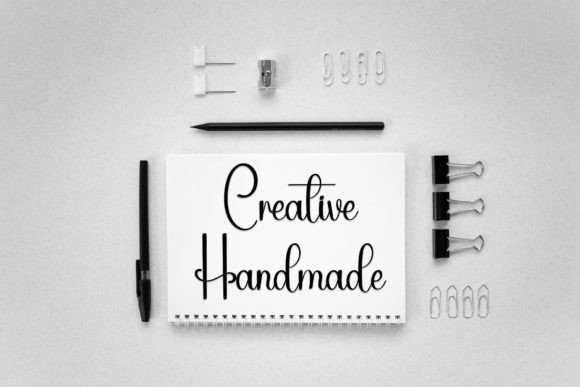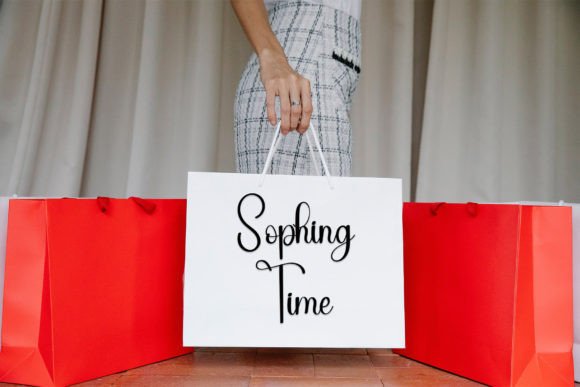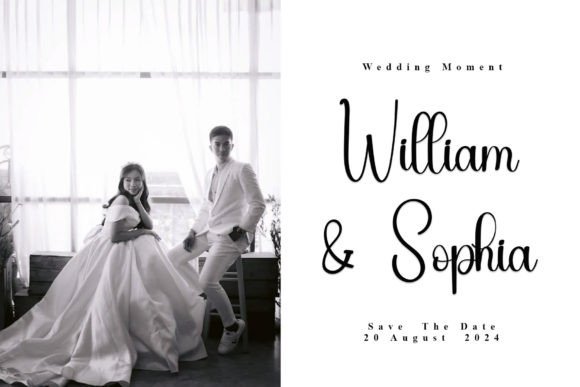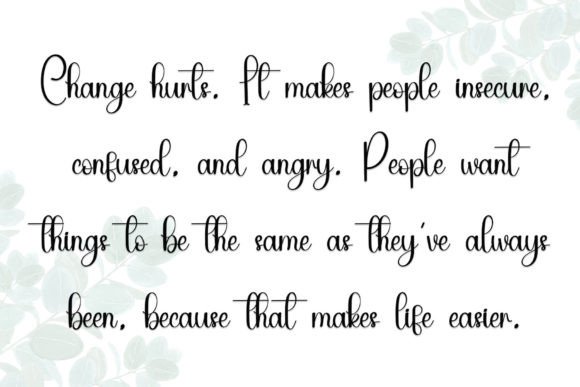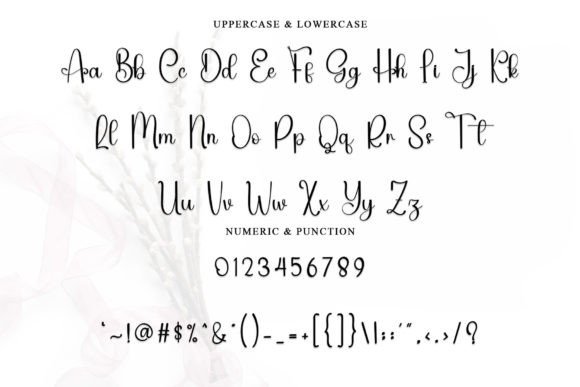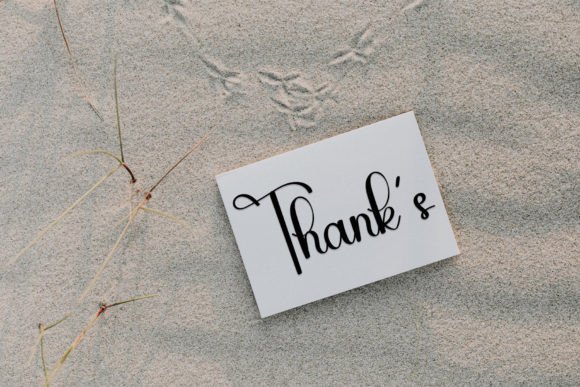
Introducing Cutting Font: Elevate Your Creative Projects with Elegance and Fun
In the world of digital design, the right font can make all the difference. Whether you’re crafting a social media post, designing a logo, or working on a DIY project, the font you choose sets the tone for your entire creation. That’s where Cutting Font comes in—a fun, handwritten font that combines elegance with a playful touch. In this article, we’ll explore what makes Cutting Font special, its features, and how you can use it to transform your creative ideas into stunning works of art.
What is Cutting Font?
Cutting Font is a meticulously crafted handwritten font designed to bring a touch of sophistication and whimsy to your projects. Its unique blend of elegance and fun makes it perfect for a wide range of applications, from Instagram posts and social media graphics to calligraphy scripts and DIY crafts. With Cutting Font, you can add a personal touch to your designs that sets them apart from the ordinary.
Key Features of Cutting Font
- Handwritten with Love: Each letter in Cutting Font is carefully handcrafted to ensure a personal and unique feel. The font’s handwritten nature gives it a warm, approachable vibe that’s perfect for connecting with your audience.
- Elegant yet Playful: Cutting Font strikes the perfect balance between elegance and playfulness. Its elegant strokes and curves make it suitable for more formal projects, while its playful undertones keep things fresh and fun.
- Versatile: Whether you’re designing for digital platforms or creating handmade crafts, Cutting Font adapts seamlessly. It’s ideal for Instagram posts, Facebook graphics, Pinterest images, and even DIY projects like handmade cards and invitations.
How to Use Cutting Font for Instagram and Social Media
In today’s digital age, standing out on social media is crucial. With Cutting Font, you can create eye-catching posts that capture your audience’s attention. Here are some ideas for using Cutting Font on Instagram and other social media platforms:
- Quote Graphics: Turn your favorite quotes into stunning graphics with Cutting Font. The font’s elegant and playful style makes quotes look especially inspiring and shareable.
- Event Announcements: If you’re hosting an event or launching a new product, use Cutting Font to create beautiful announcements that stand out in crowded social media feeds.
- Personal Stories: Add a personal touch to your social media stories with Cutting Font. Whether you’re sharing a personal milestone or a behind-the-scenes look at your creative process, this font will make your stories feel more authentic and engaging.
Using Cutting Font for DIY Projects
Cutting Font isn’t just for digital design; it’s also perfect for DIY projects. Here are some creative ways to use this versatile font in your handmade crafts:
- Handmade Cards: Add a touch of elegance to your greeting cards with Cutting Font. Whether you’re making a birthday card or a heartfelt thank-you note, this font will make your card look extra special.
- DIY Invitations: Create beautiful invitations for parties, weddings, or baby showers using Cutting Font. The font’s elegant style makes it perfect for formal events, while its playful undertones keep things fun and inviting.
- Calligraphy and Lettering: If you’re interested in calligraphy or lettering, Cutting Font is a great addition to your toolkit. Use it to practice your lettering skills or to create stunning calligraphy pieces for display.
Tips for Getting the Most Out of Cutting Font
To truly make Cutting Font shine in your projects, consider the following tips:
- Experiment with Colors: Don’t be afraid to play around with different colors and textures. Cutting Font looks great in bold, bright colors, but it also works beautifully in more subtle tones.
- Mix and Match Fonts: For added visual interest, try pairing Cutting Font with other fonts. Its unique style makes it a great accent font, and it pairs well with both serif and sans-serif fonts.
- Pay Attention to Spacing: Handwritten fonts like Cutting Font often look best with a bit of extra space between letters or lines. Experiment with kerning and line spacing to find the perfect balance for your project.